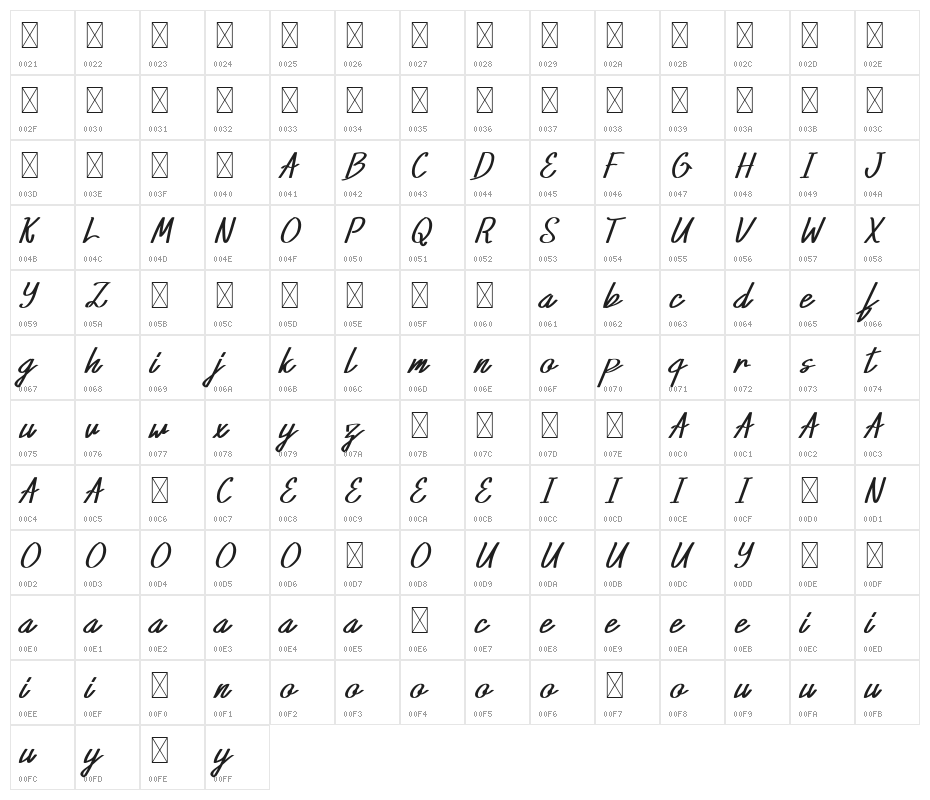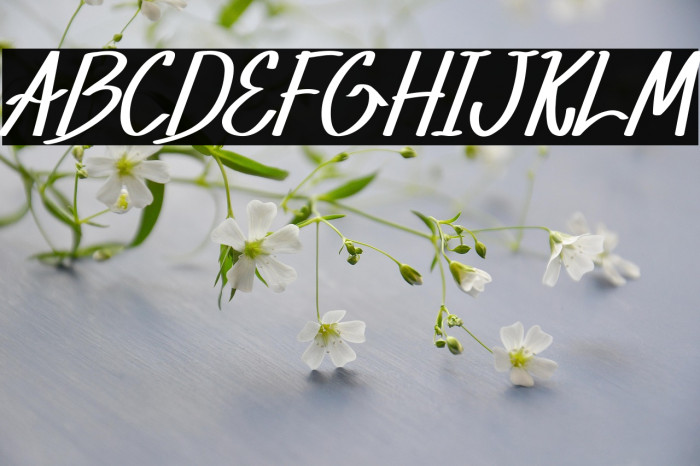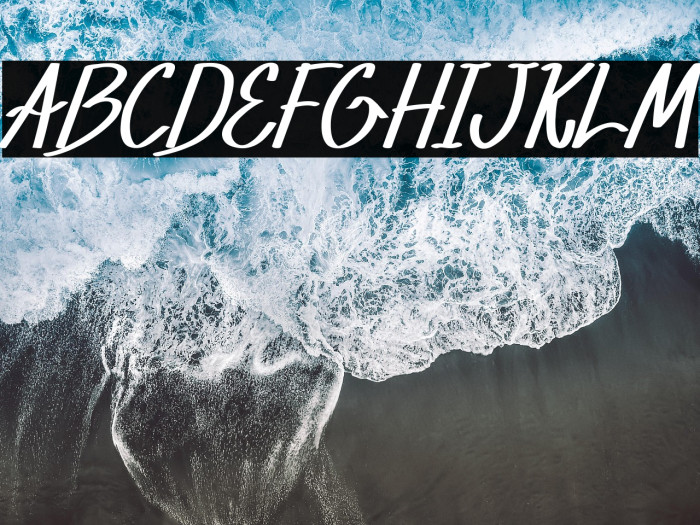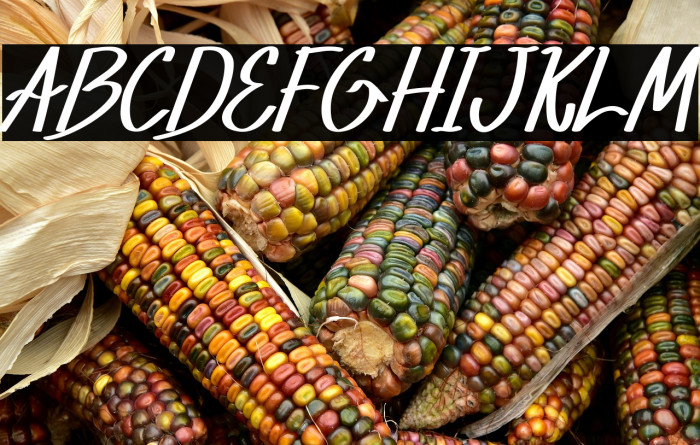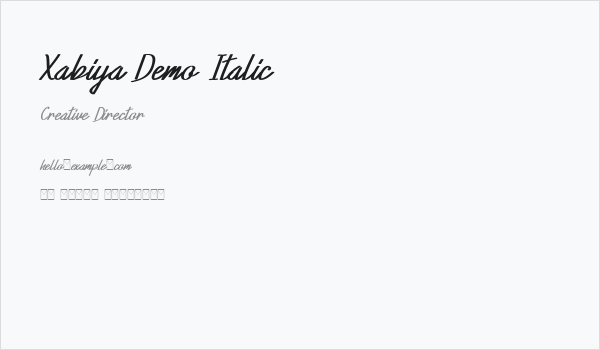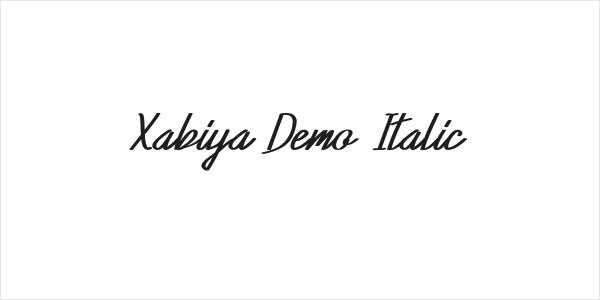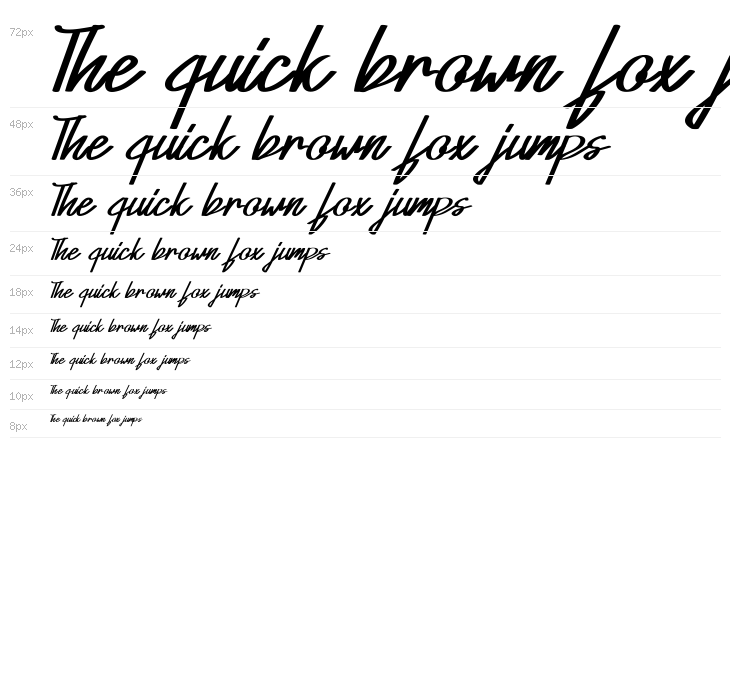
Xabiya Demo Italic Font
Xabiya Demo Italic Description
This font features a dynamic and elegant script style with a distinct italic slant, giving it a sense of movement and fluidity. The uppercase letters are bold and expressive, with sweeping curves and sharp angles that create a striking visual impact. The lowercase letters maintain a consistent flow, enhancing readability while retaining the font's artistic flair. The overall design is cohesive, with each character seamlessly connecting to the next, making it ideal for creating visually appealing text. The absence of special characters suggests a focus on alphabetic and numeric characters, emphasizing its use in decorative and headline contexts.
| Proposed Projects | Ideal for branding, invitations, logos, and decorative headlines. |